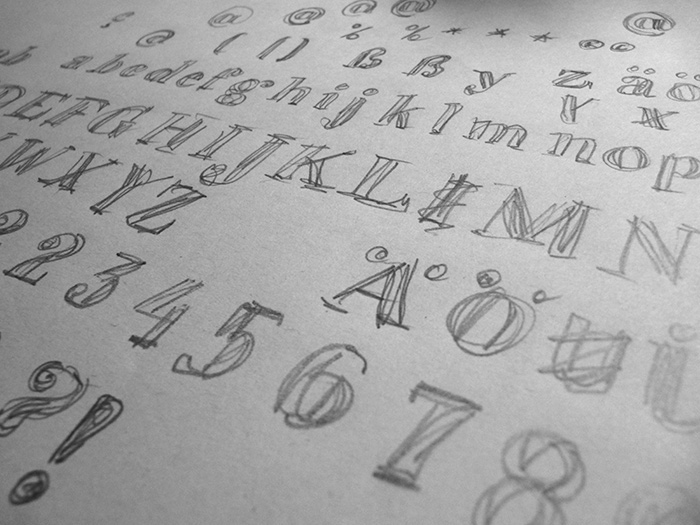
When designing something I quickly scribble text. This is the serif type of scribble text I write.
I used autotrace to digitize it. The typeface should keep its rough appearance so I barely edited the glyph shapes before creating the font.